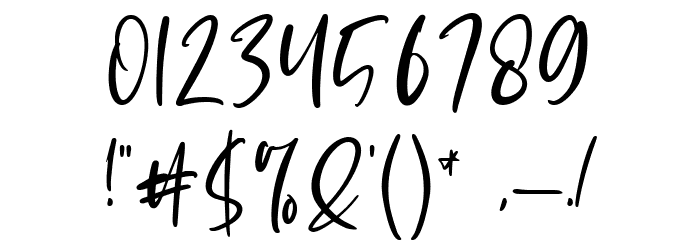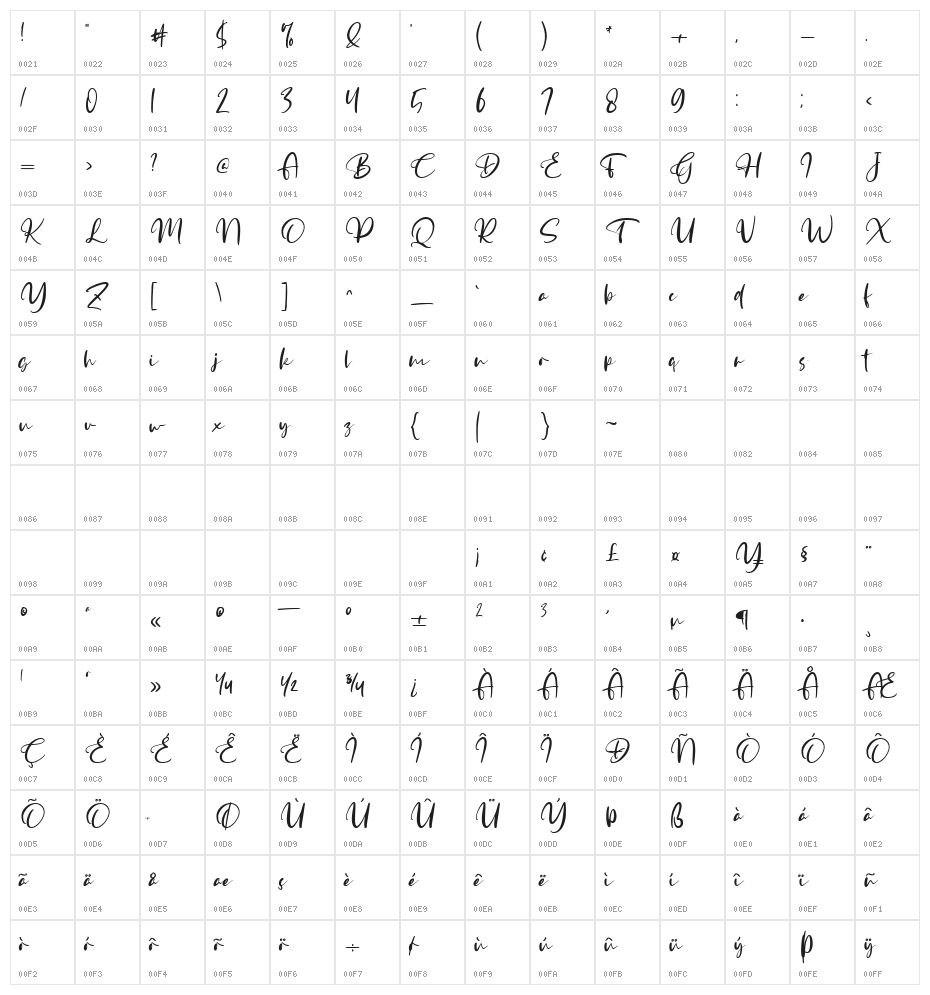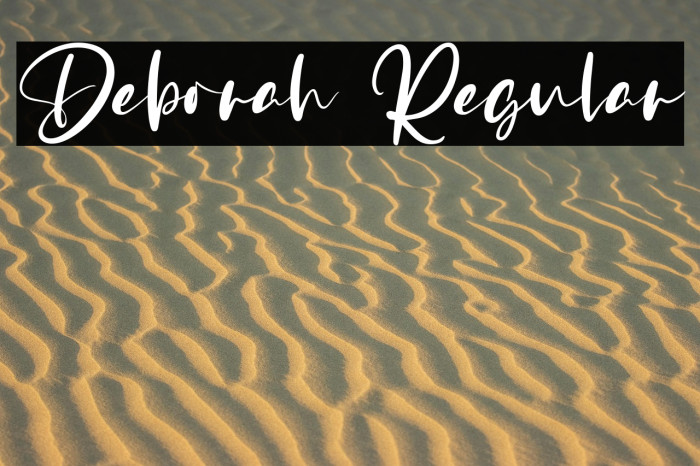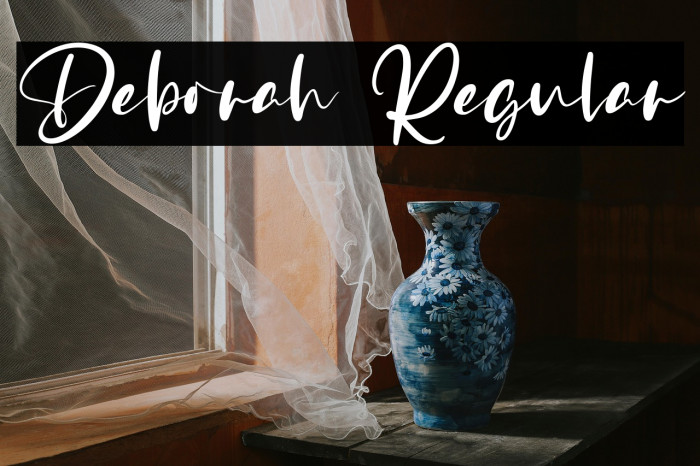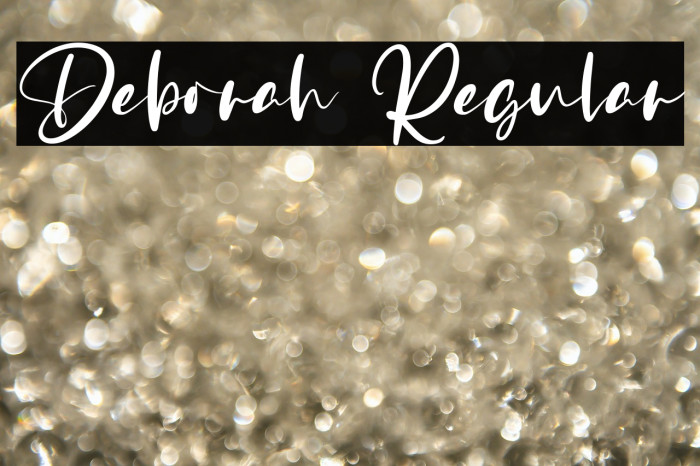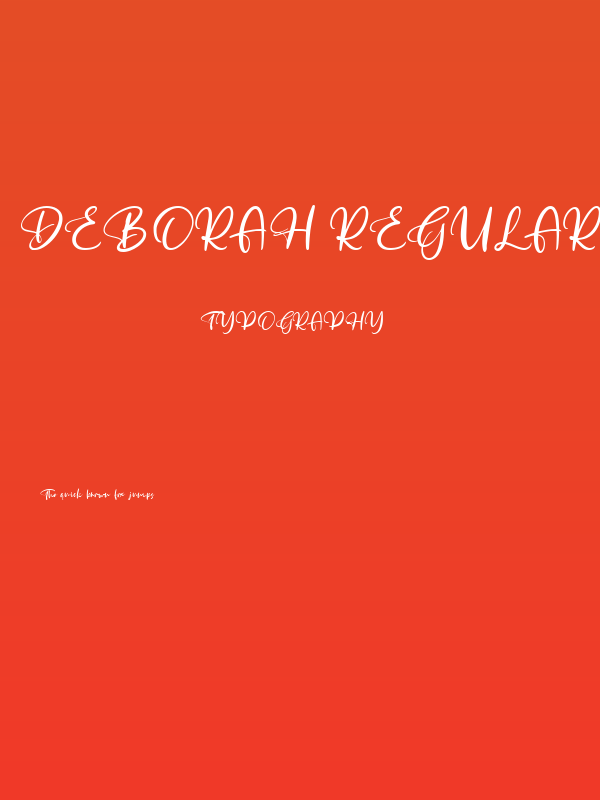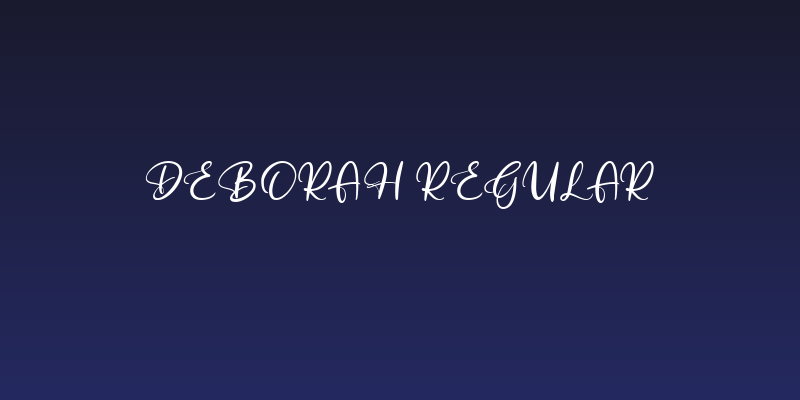
Deborah Regular Font
Deborah Regular Description
This font features a flowing, cursive style that exudes elegance and sophistication. The characters are interconnected, creating a seamless and fluid appearance. The uppercase letters are bold and prominent, while the lowercase letters maintain a consistent, graceful flow. The numerals are distinct and easy to read, complementing the overall aesthetic. Special characters are designed with the same attention to detail, ensuring they blend seamlessly with the rest of the font. This font is perfect for projects that require a touch of class and refinement.
Overall StyleElegant
Use CaseLogos, Invitations, Branding
Proposed ProjectsIdeal for wedding invitations, greeting cards, branding, and elegant logo designs.